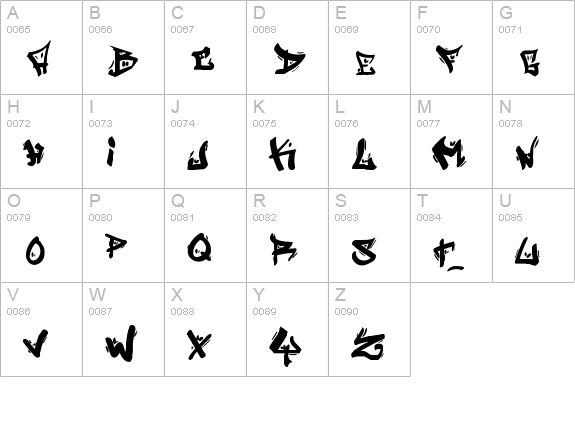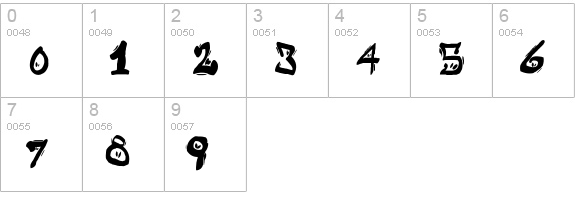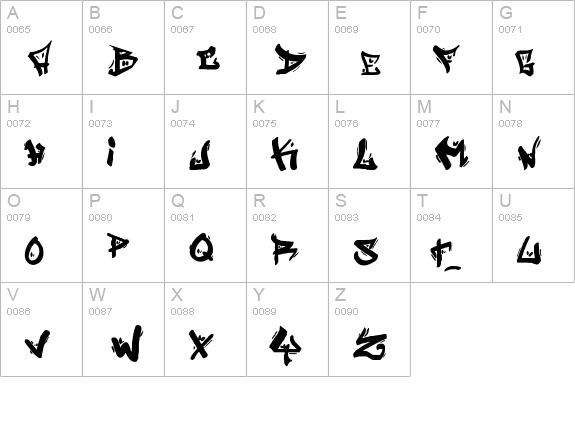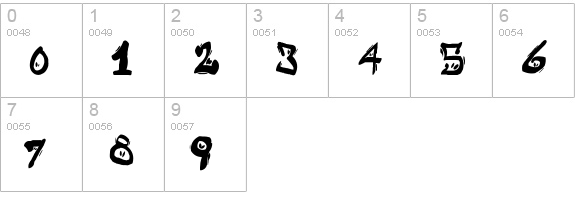
Street Writer (noah) Font Details
Street Writer (noah) font is a bold and gritty typeface that exudes urban charm and creativity. Its edgy design is perfect for capturing the raw energy of the streets and adding a rebellious flair to any project. With its unique style and striking appearance, Street Writer (noah) font is sure to make a statement and grab the attention of viewers. Best of all, this font is available for free download at FontsMarket.com, making it easily accessible for anyone looking to add a touch of urban cool to their designs. Whether you're working on a poster, flyer, or branding project, Street Writer (noah) font is the perfect choice for bringing a fresh and dynamic look to your work. Download it today and unleash your creativity with this exciting and versatile font.